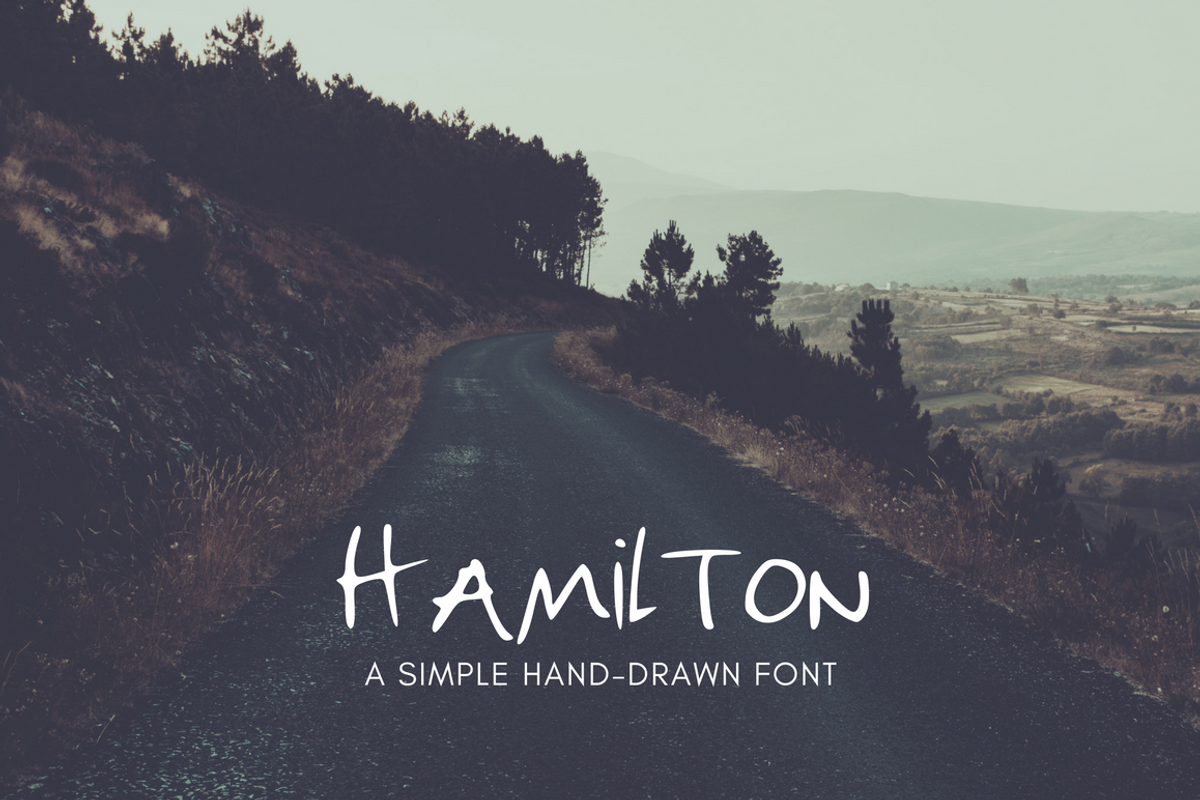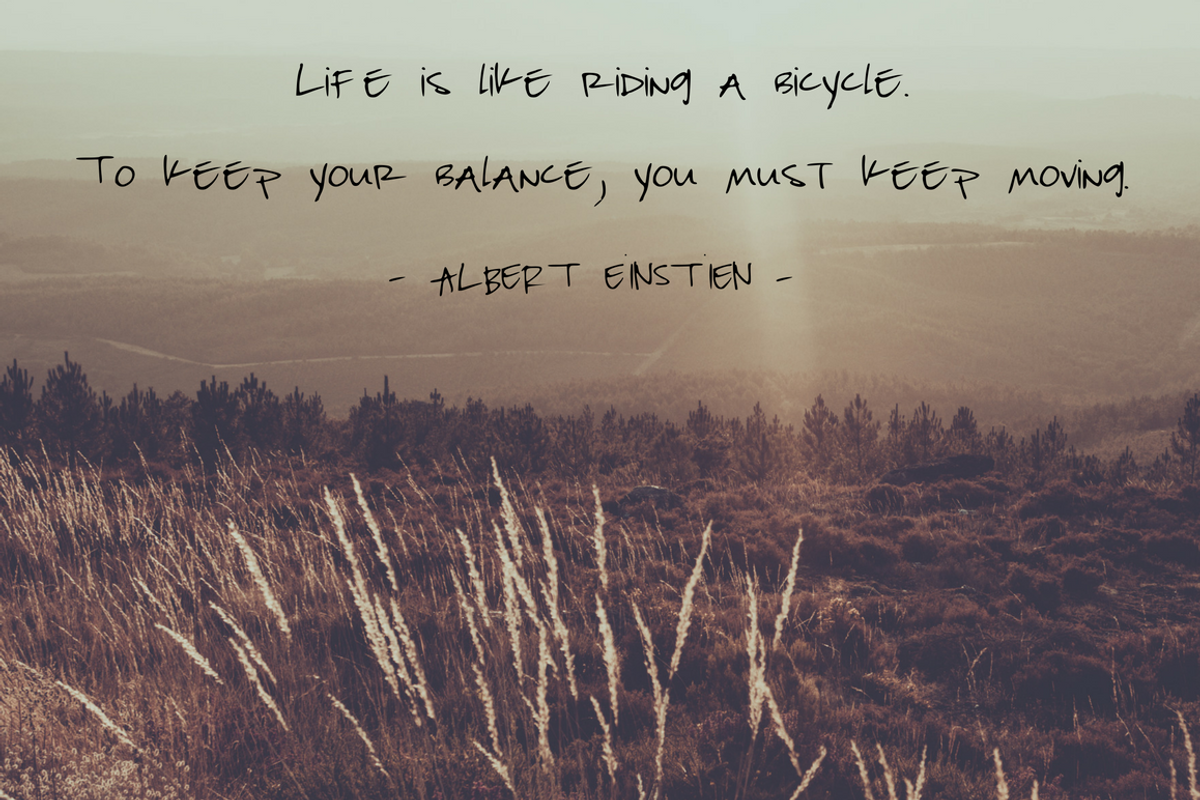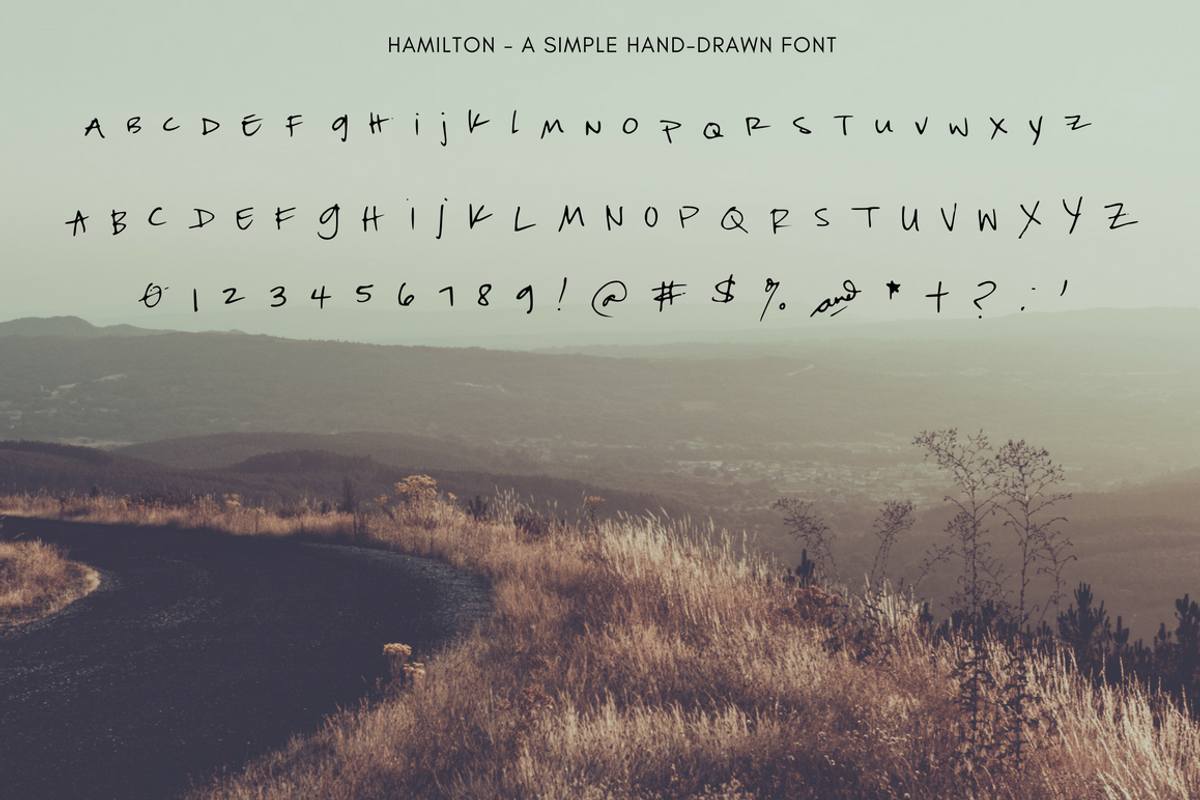
Hamilton | Hand Drawn Uppercase Font
Hamilton | Hand Drawn Uppercase Font by Graceful Market is a font selected for branding, posters, packaging, typography.
- Meet Hamilton, fun and edgy with all uppercase hand written letters.
Why Hamilton | Hand Drawn Uppercase Font is worth a look
Hamilton | Hand Drawn Uppercase Font by Graceful Market fits naturally into Branding, posters, packaging, typography.